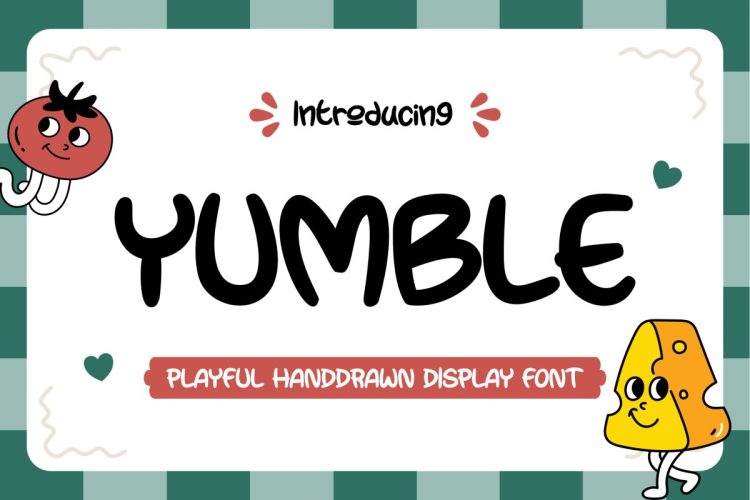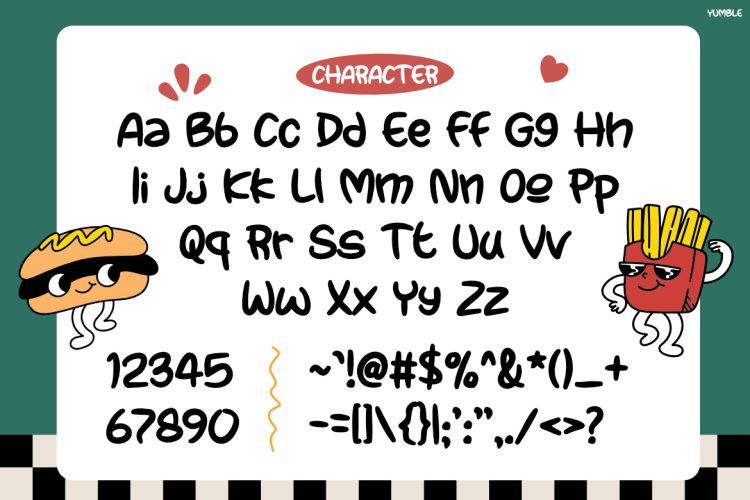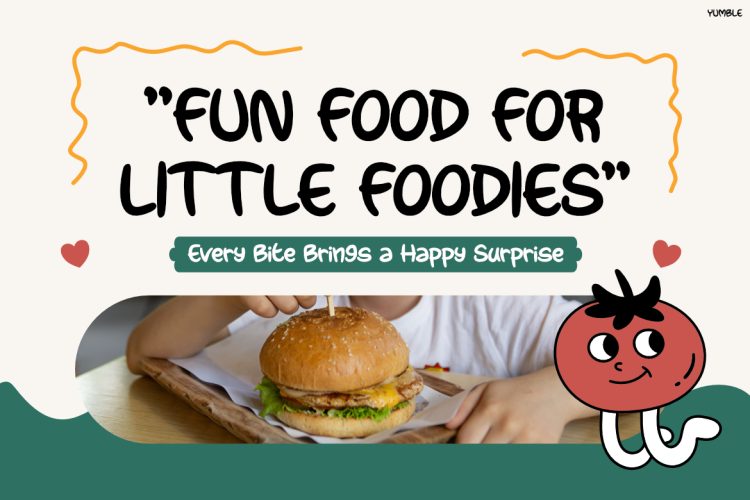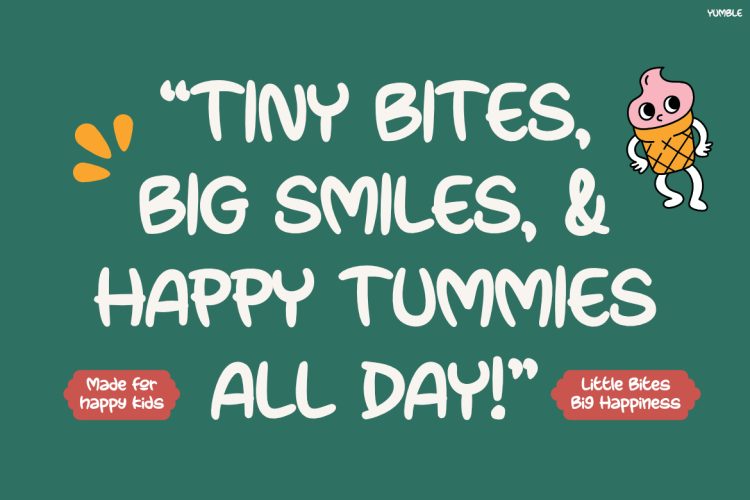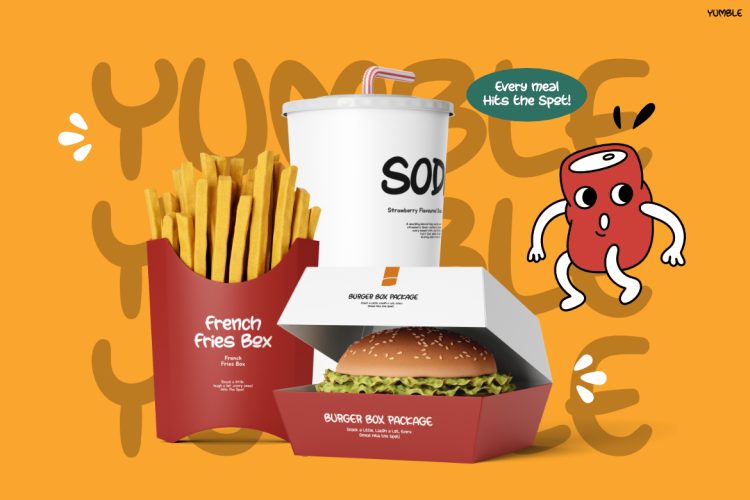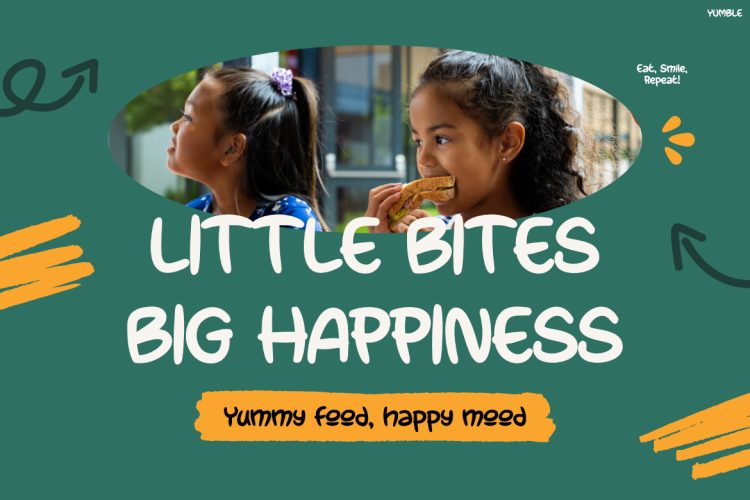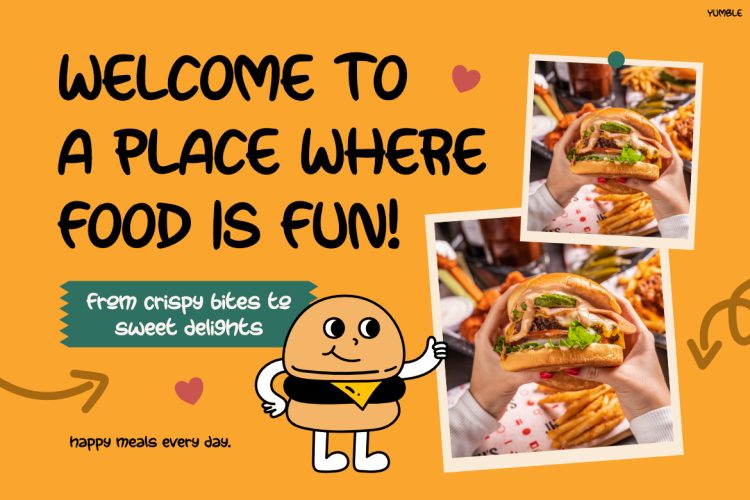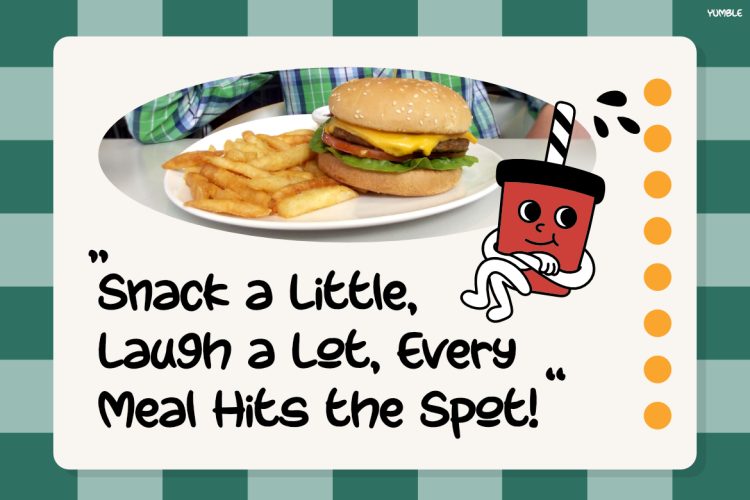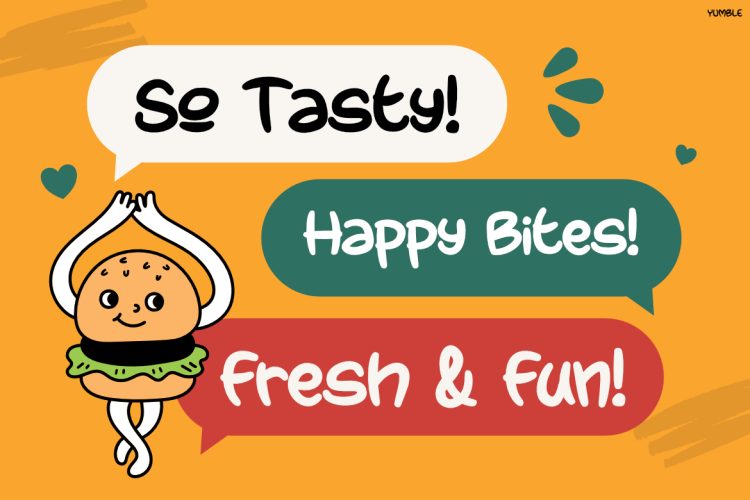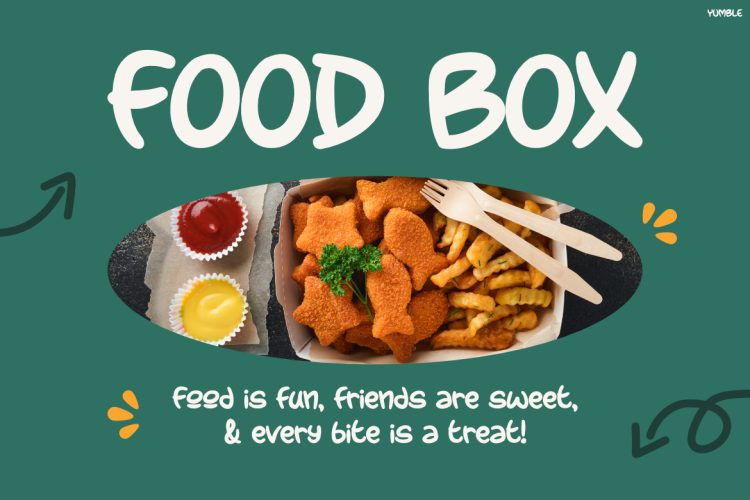
Yumble โ Playful Food-Themed Kids Display Font
Kids Font Yumble delivers a fun, bold look with chunky shapes and a cheerful personality. Its hand-drawn style feels lively and full of energy. Each letter has soft curves and playful details. As a result, the font looks friendly and easy to read. Moreover, its slightly bouncy form adds a natural rhythm. This makes every word feel dynamic and engaging. Because of its unique style, Kids Font Yumble stands out in any layout. It blends perfectly with bright colors and cute illustrations. Therefore, it works great for designs that need a joyful and tasty vibe.
Who Is It For?
Yumble is perfect for designers and brands that target kids or families. It suits creators who want fun and eye-catching visuals. In addition, it works well for teachers and event planners. They can use it for posters, worksheets, or invitations. The font also fits content creators who design social media posts or thumbnails. Because of its friendly tone, it helps build a warm connection with audiences.
Where It Works Best
This font shines in playful and colorful projects. For example, it works well for food packaging, snack branding, and kidsโ menus. It also fits storybooks, birthday cards, and school materials. Furthermore, it performs well in digital content like banners and Instagram posts. Its bold style grabs attention quickly. At the same time, it keeps the design fun and easy to enjoy.